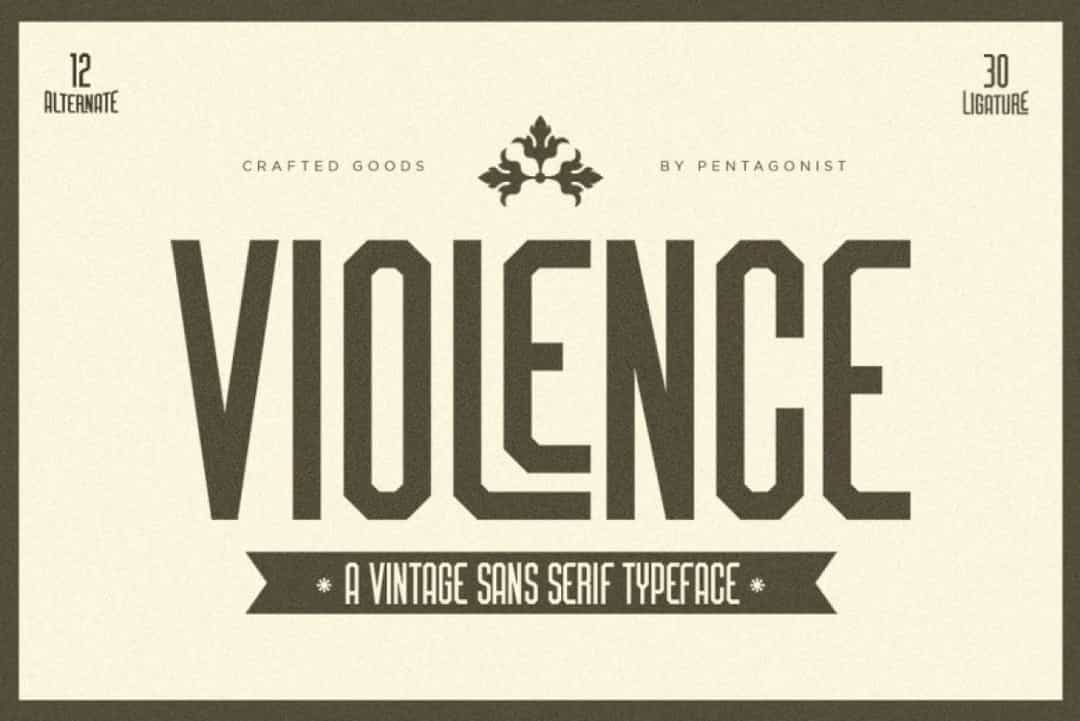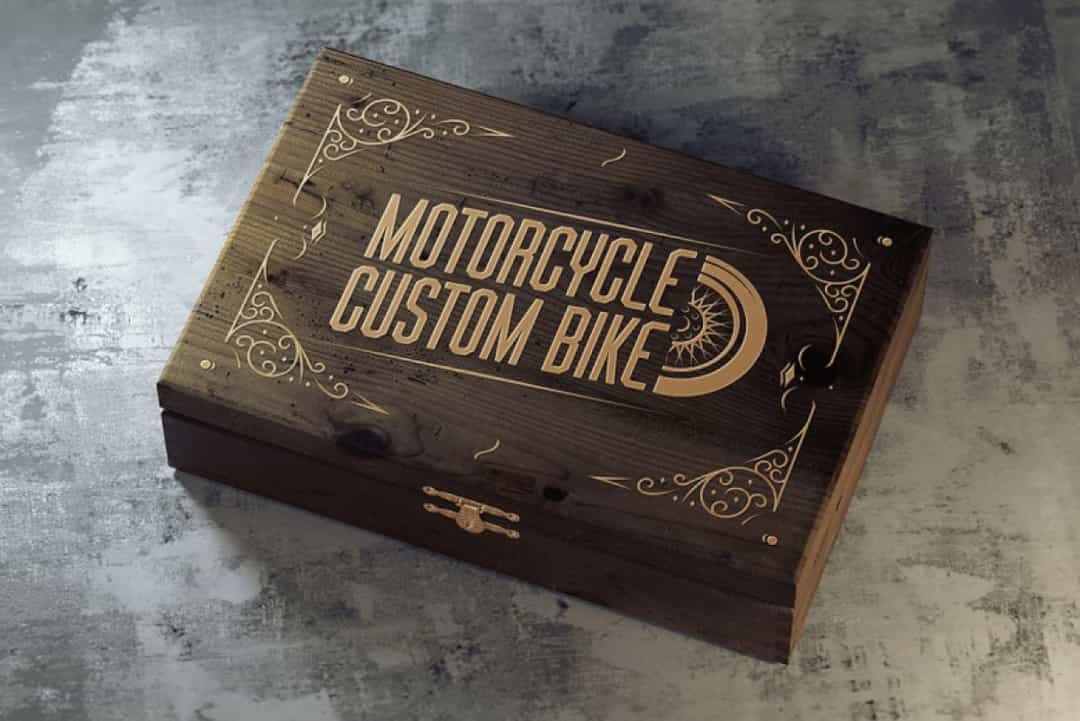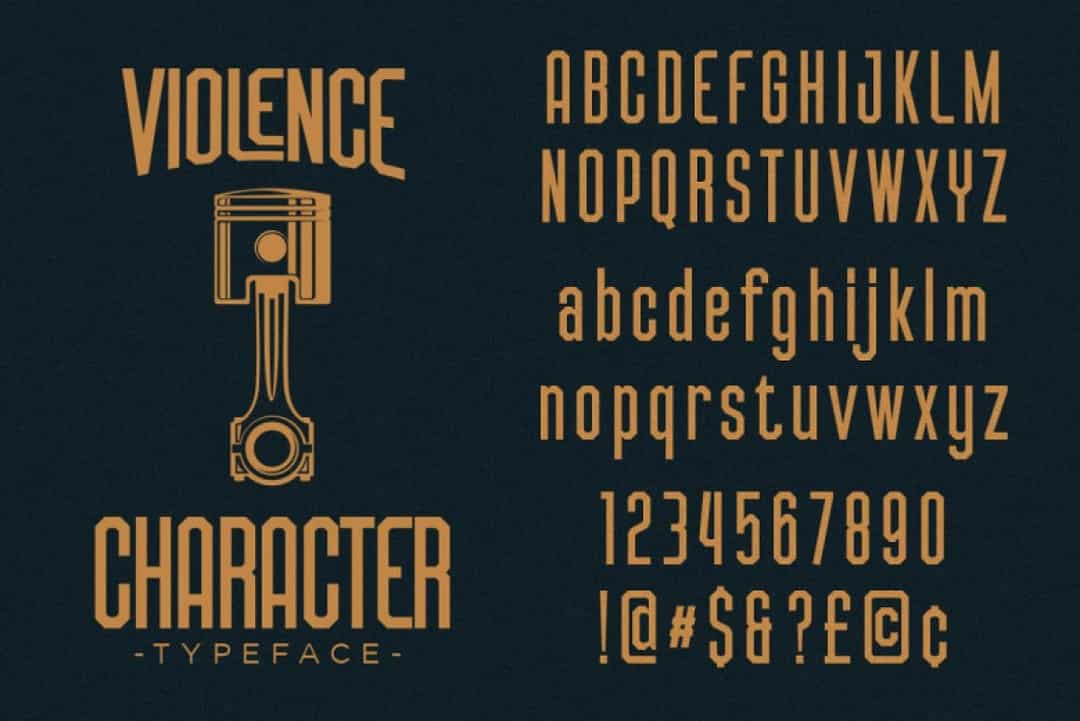
Violence is a stylish vintage-inspired sans serif font with wide appeal that is versatile enough for use across any type of project. With no additional effort required on your part, this font can elevate any product while making it stand out amongst competitors. PUA encoded means you have access to all symbols and ligatures easily!